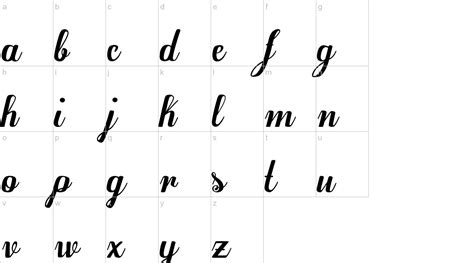
Egregio Script Font Free Download : 50+ Best Script Fonts - Free Download - PSDTemplatesBlog / This font uploaded 20 may 2014.. Egregio script font can still connect on a very personal, almost friendly level with your audience while it remains in a class of its very own. 230,023 downloads (182 yesterday) demo. This font come in ttf format and support 56 glyphs. This font uploaded 20 may 2014. Although we have indicated the license type, please make sure to double check it by reading the information shown in the details area.
Egregio script font can still connect on a very personal, almost friendly level with your audience while it remains in a class of its very own. This font is in the regular style. Choose the font egregio script could typically be used in situations where the need of the hour is formal but yet not overly old fashioned. Please, talk with the author for commercial use or for any support. Egregio script, fontscafe.com, calligraphy, script, egregio_script.jpg, egregioscript_540.jpg, egregioscript_demo.ttf.
Choose the font egregio script could typically be used in situations where the need of the hour is formal but yet not overly old fashioned.
It is styled with fonts that cry out 'eliteness' and exclusivity, but without the part where it becomes so exclusive and classy that it goes way over people's heads! Egregio script font | dafont.com. Choose the font egregio script could typically be used in situations where the need of the hour is formal but yet not overly old fashioned. Egregio script_demo egregioscript_demo.ttf 28 kb | free for personal use only. 230,023 downloads (182 yesterday) demo.
Please don't waste your time looking for a free download of egregio script. Please, talk with the author for commercial use or for any support. Script egregio various euro accents calligraphy brush. Download free egregio script font by fontscafe.com from fontsly.com. This font is in the regular style. Full and commercial versions available at. Egregio script demo was designed by fontscafe com. Download egregio script font (1 styles).
Free fonts, handwriting fonts, handmade fonts, handwritten fonts, old, retro, vintage fonts ready for the download. Egregio script font can still connect on a very personal, almost friendly level with your audience while it remains in a class of its very own. Egregio script demo is the perfect font for all your fun designs. Download egregio script font (1 styles). Free for personal use only. Script egregio various euro accents calligraphy brush. Dff, world's largest free font download repository, daily updates with high quality ttf & otf fonts. Egregio script has 1 style and demo license. Home > best script fonts > egregio script font. Egregio script demo font this font was posted on 06 may 2015 and is called egregio script demo font. Although we have indicated the license type, please make sure to double check it by reading the information shown in the details area. Please, talk with the author for commercial use or for any support. We can imagine this font being.